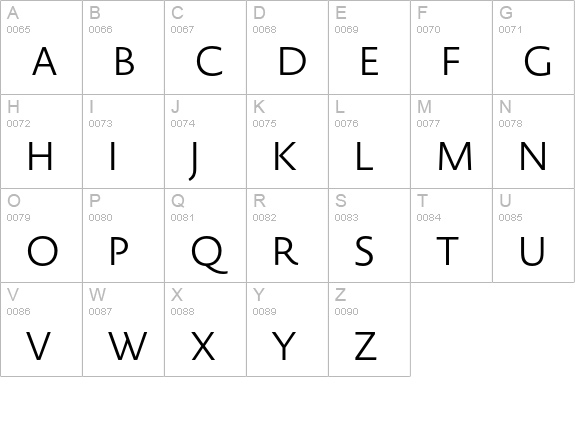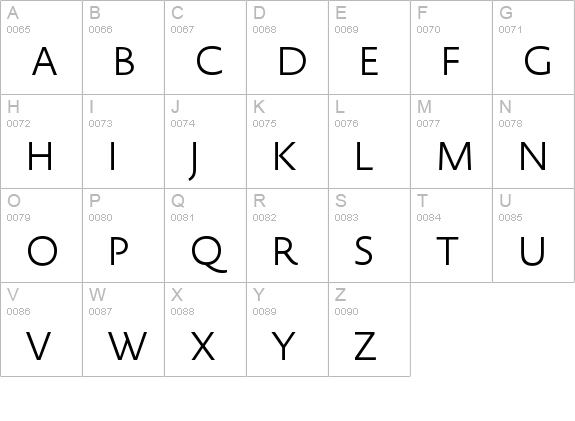
Novel Sans Pro Light is a refined, elegant variant in the Novel typeface family \xE2\x80\x94 well suited to elegant body text, refined sub-headings, and luxury branding.